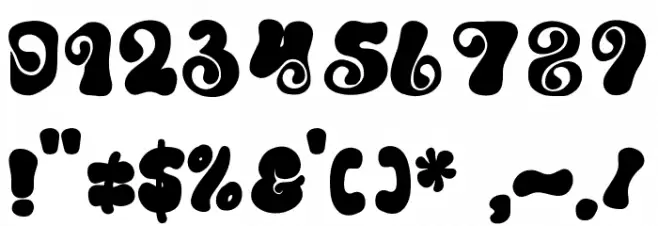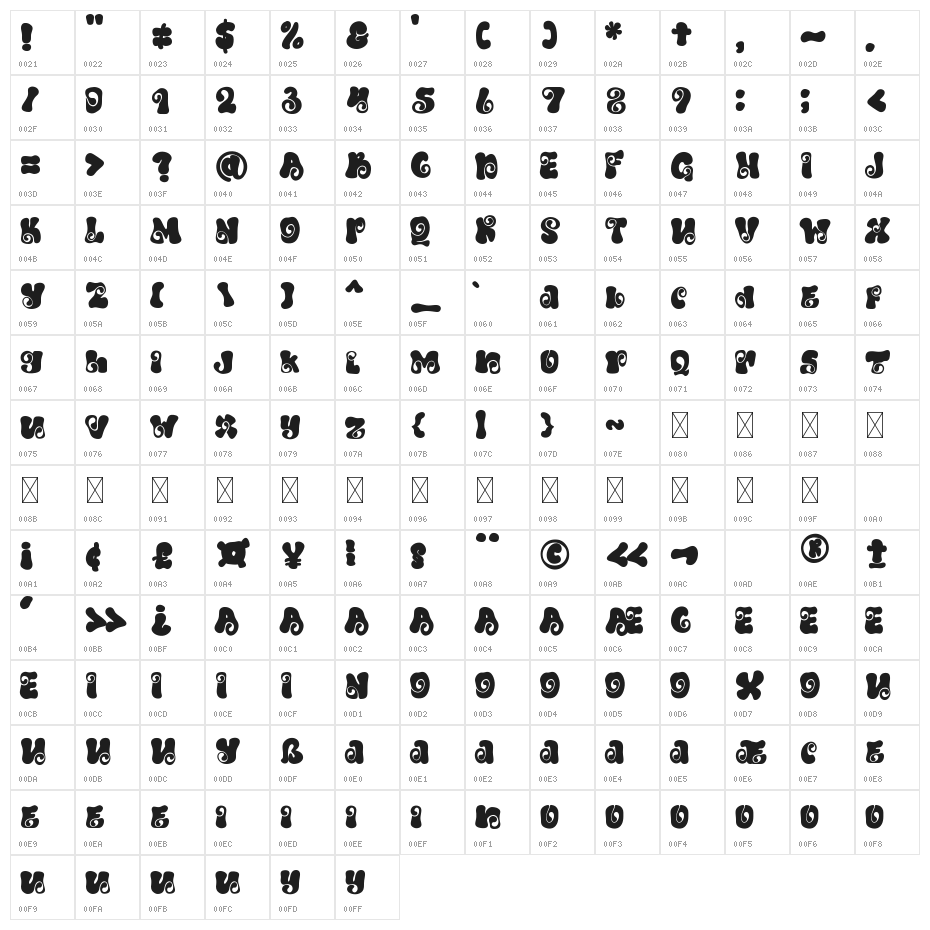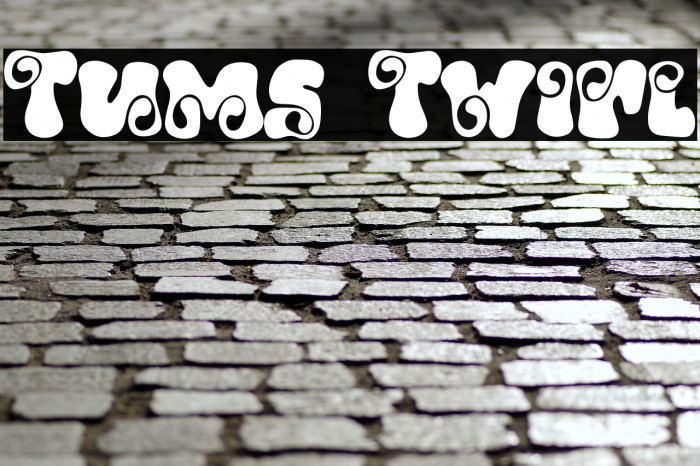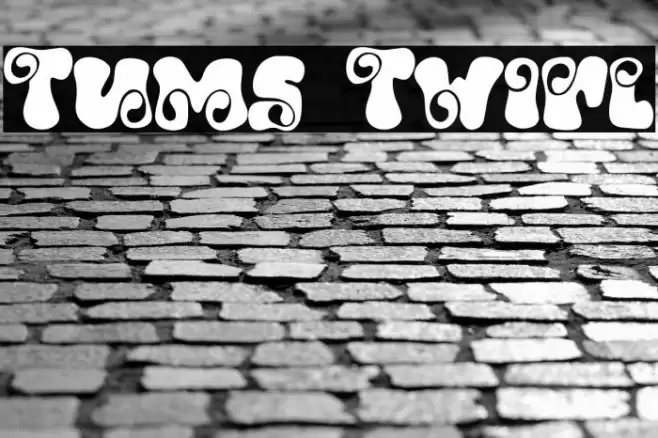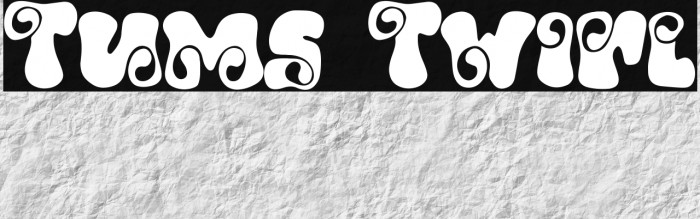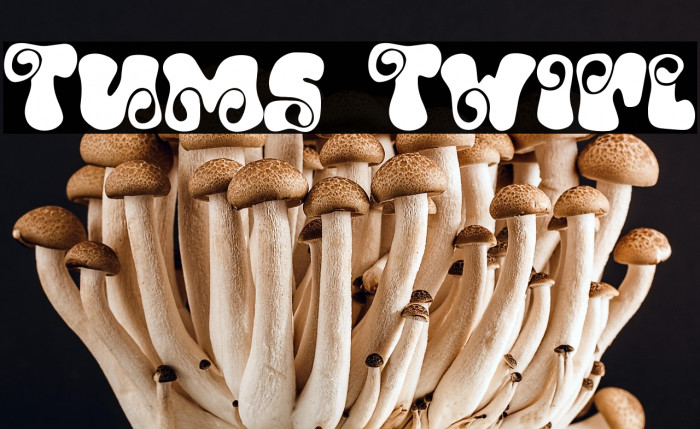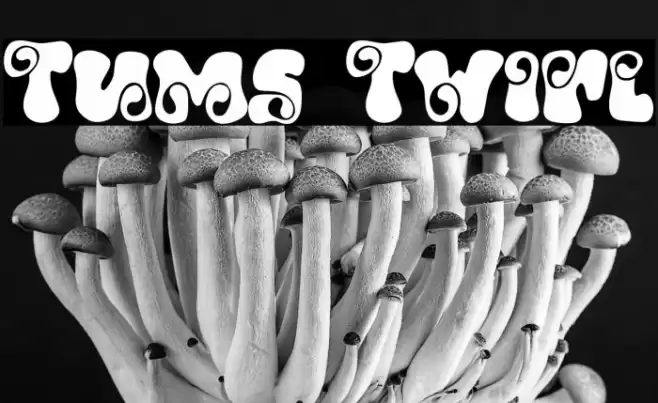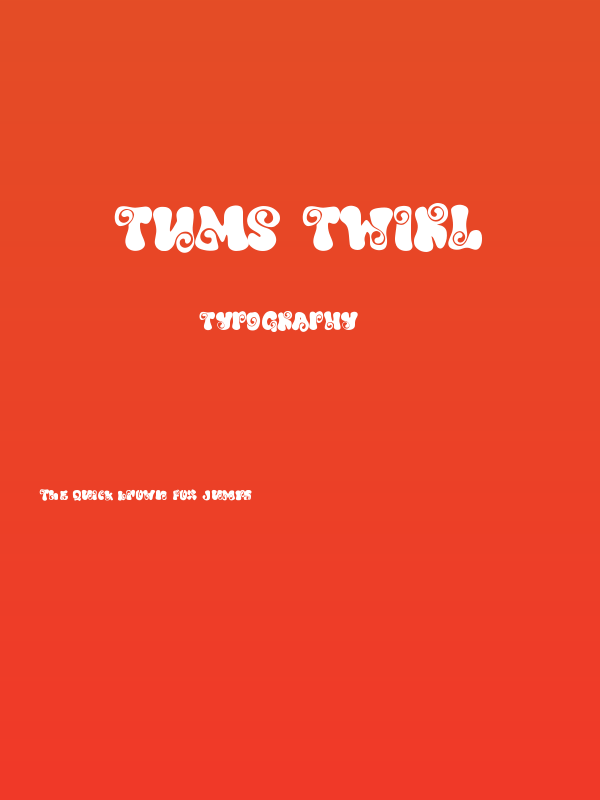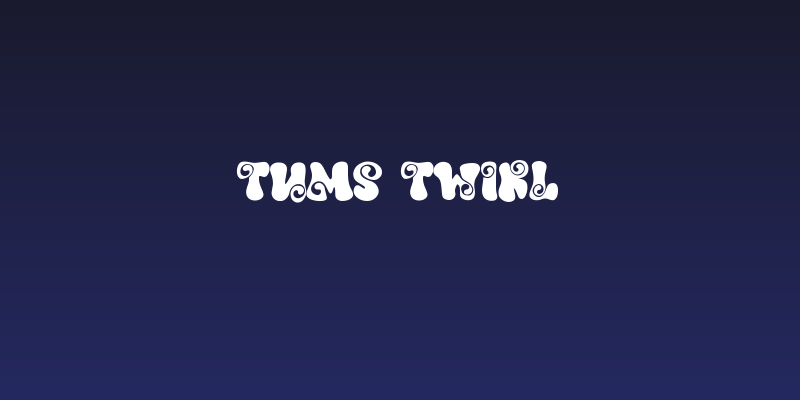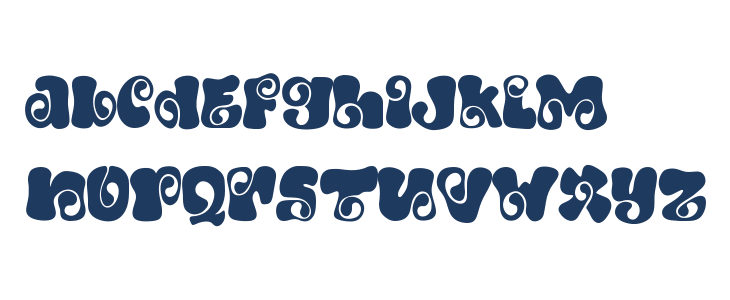
Tums Twirl Font
Tums Twirl Description
This font features a playful and whimsical design, characterized by its bold, swirling shapes that give each character a unique and dynamic appearance. The letters are heavily stylized with thick strokes and exaggerated curves, creating a sense of movement and energy. The font's distinctiveness is further enhanced by its high contrast between the thick and thin parts of the letters, making it stand out in any design. The overall look is both fun and eye-catching, suitable for projects that require a bold and creative touch.
| Proposed Projects | Ideal for children's book covers, playful branding, event posters, and creative advertising campaigns. |